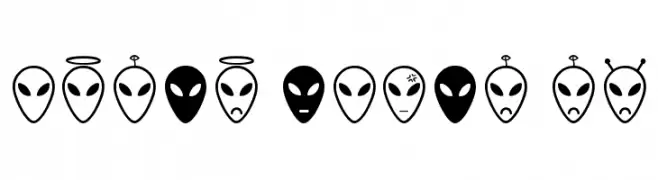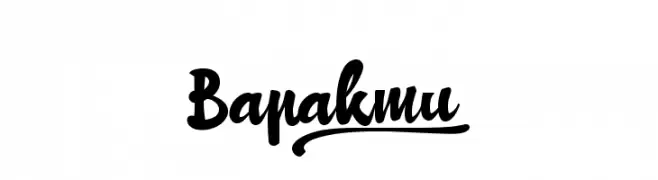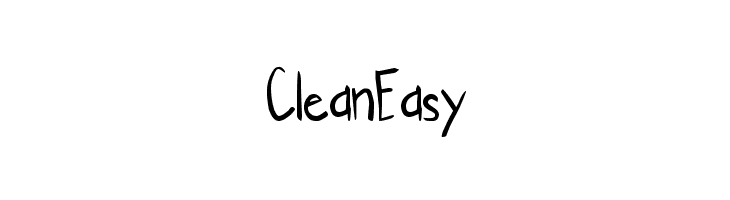
A bold, decorative font with fluid, enclosed characters.
A bold, angular font with a futuristic and dynamic design.
A bold, expanded, and italic font with a dynamic and energetic style.
An ornate and decorative font with tribal-like embellishments.
A bold, condensed font with a modern and impactful style.
Whimsical alien face icons used as letter and symbol glyphs.
A playful, handwritten font with bold strokes and a whimsical style.
A bold, playful script font with a handwritten style.